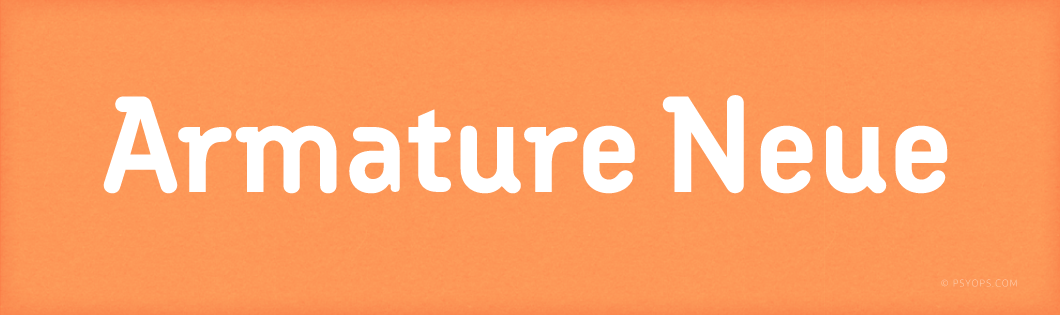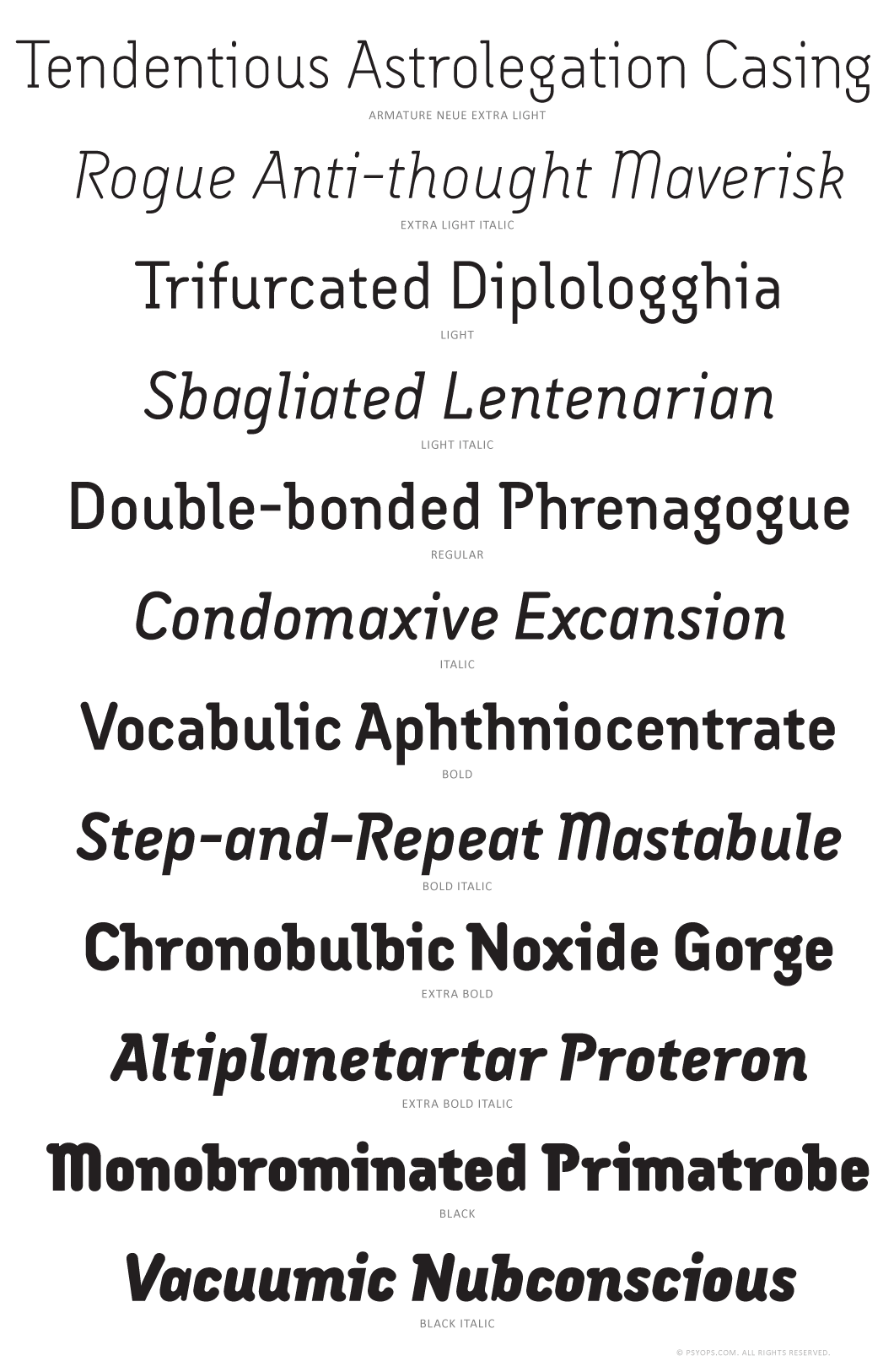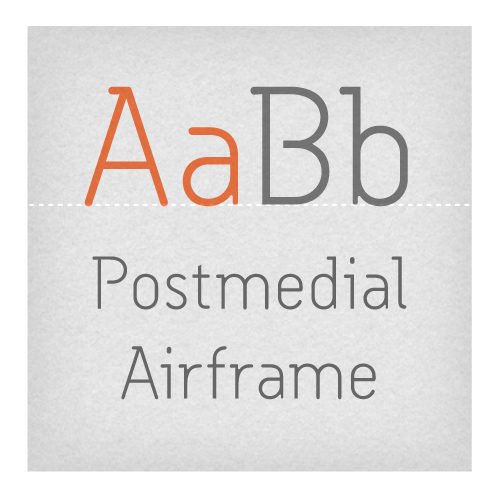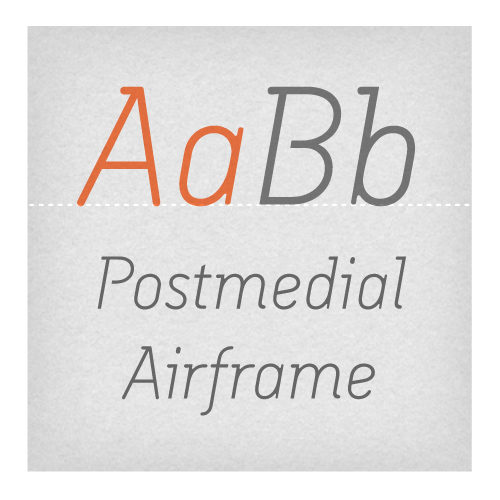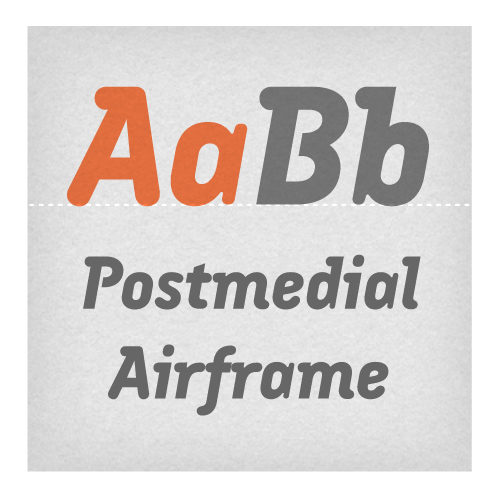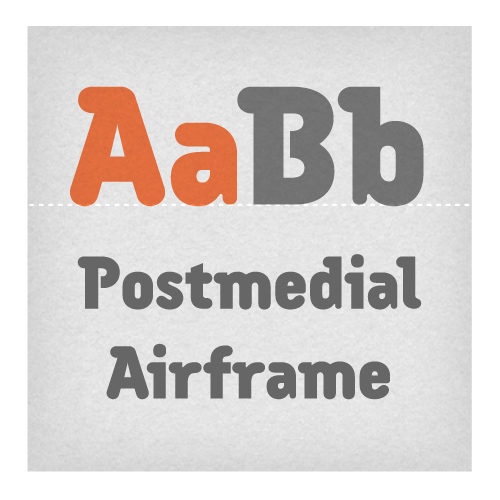
Armature Neue is an extension and clarification of the original Armature family released in 1997. We made the distribution of weights more even, and added italics extra light and black weights. Originally consisting of four fonts, Armature Neue has twelve: six weights with accompanying italics. Although conceived as a display face, a number of alternate characters are included that can be used to regularize the type for text setting.
Armature is one result of Bob Aufuldish’s interest in typefaces that are constructed, rather than drawn. Although it is basically a monoline design, there are subtle details throughout that compensate for a monoline’s evenness.
As with all fontBoy fonts, there are dingbats hidden away in the dark recesses of the keyboard. When Afouldish first started designing this face in 1992, he called it Dino — he thought he would name all my fonts after famous pets-so the dingbats for Armature are dinosaurs.
The Armature Neue fonts contain Western and Eastern European characters, ligatures, stylistic alternates, and more.